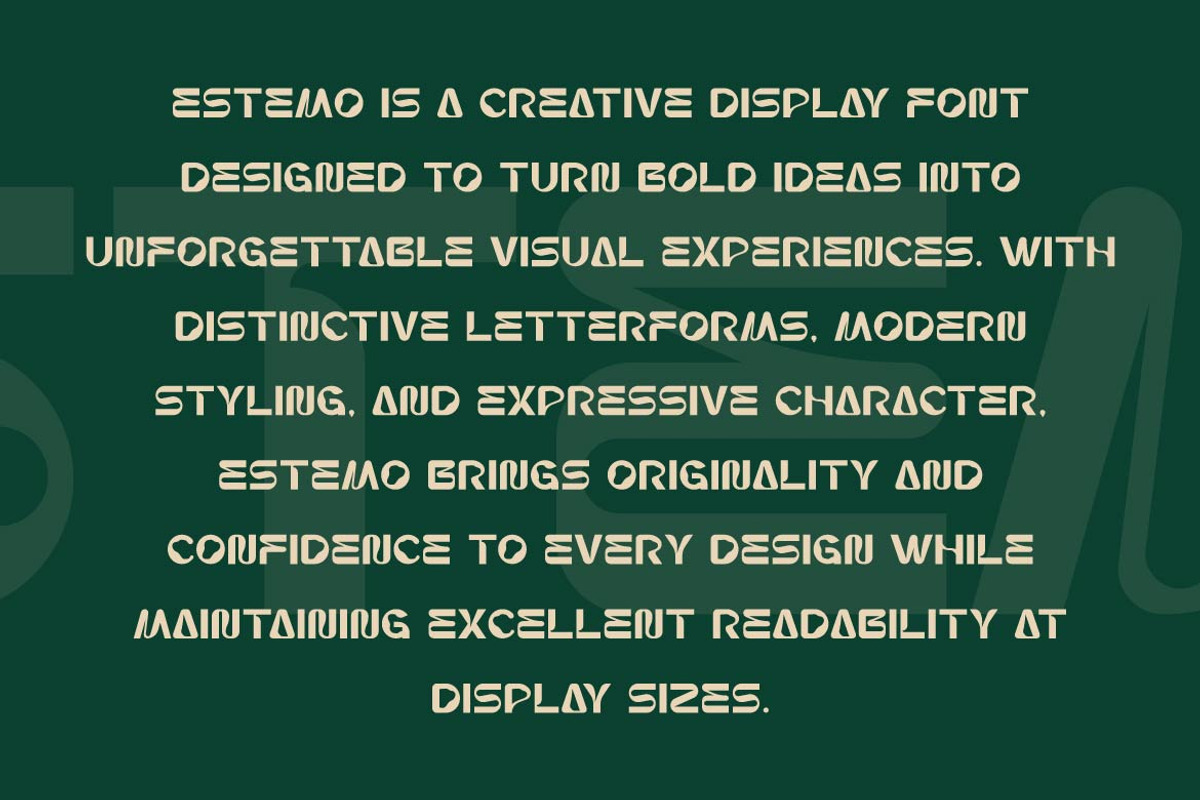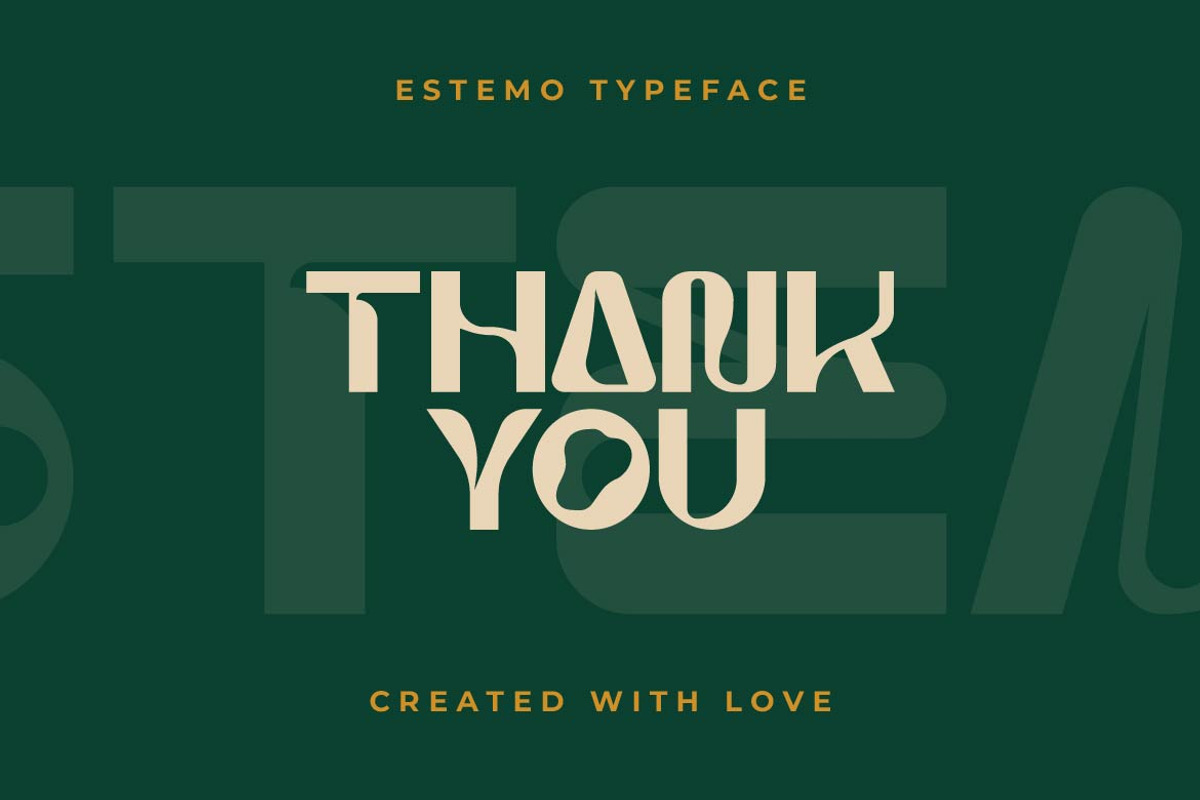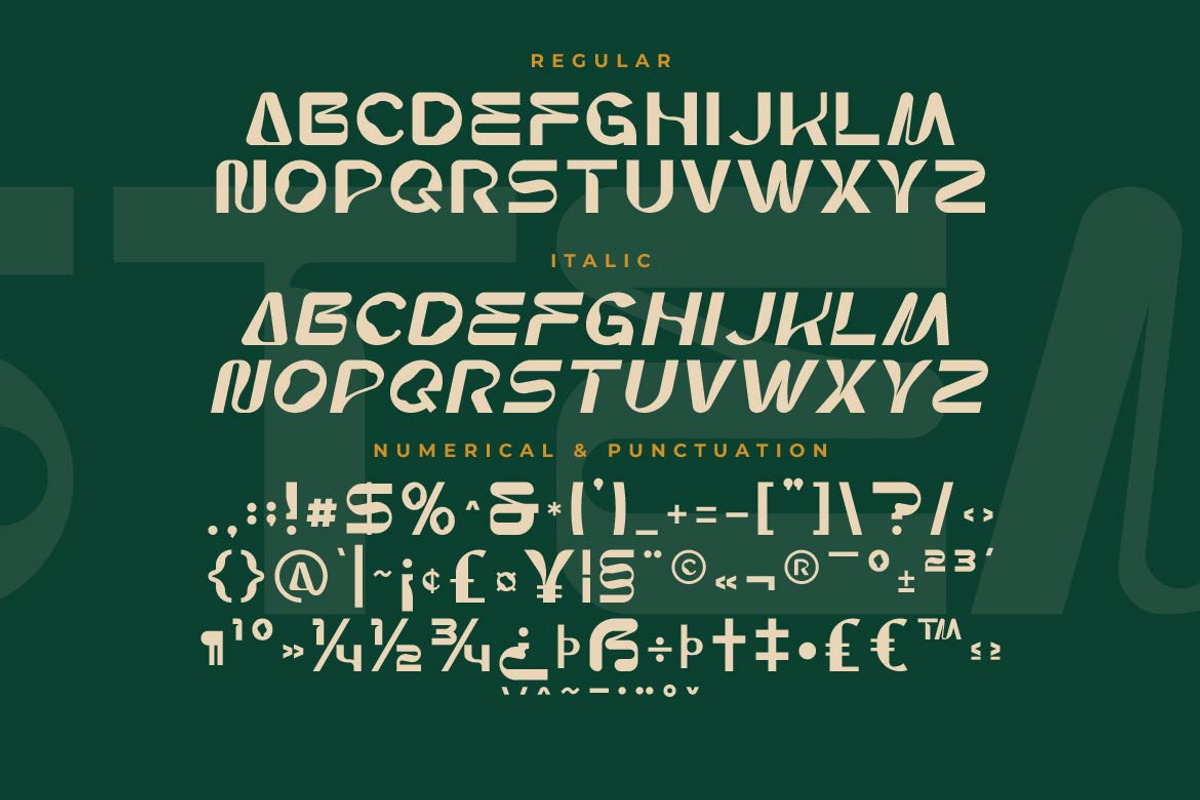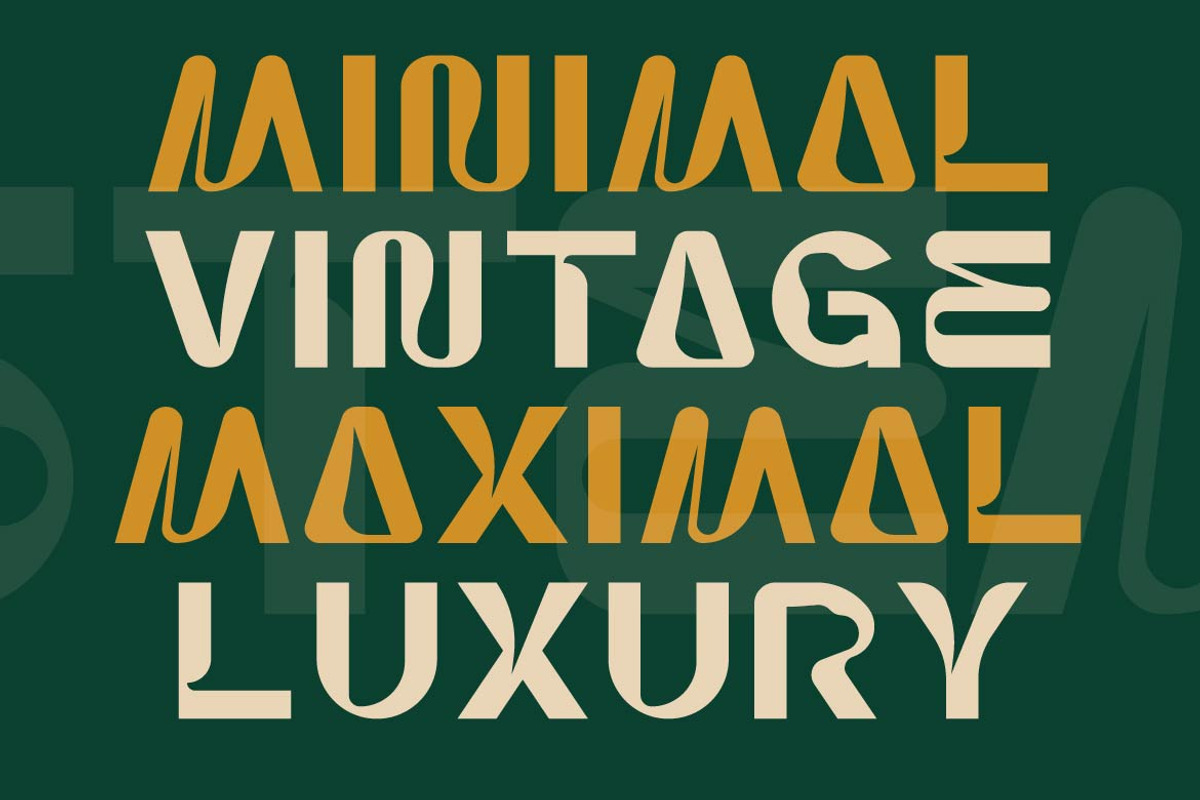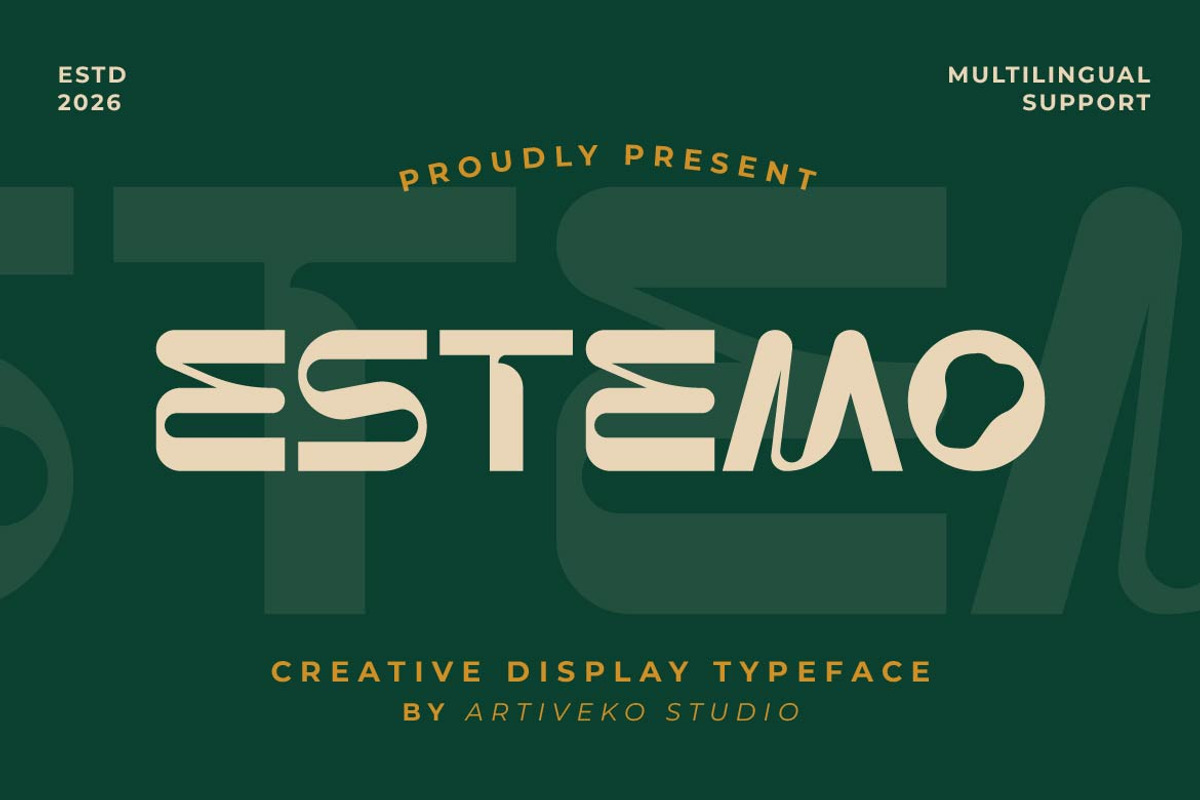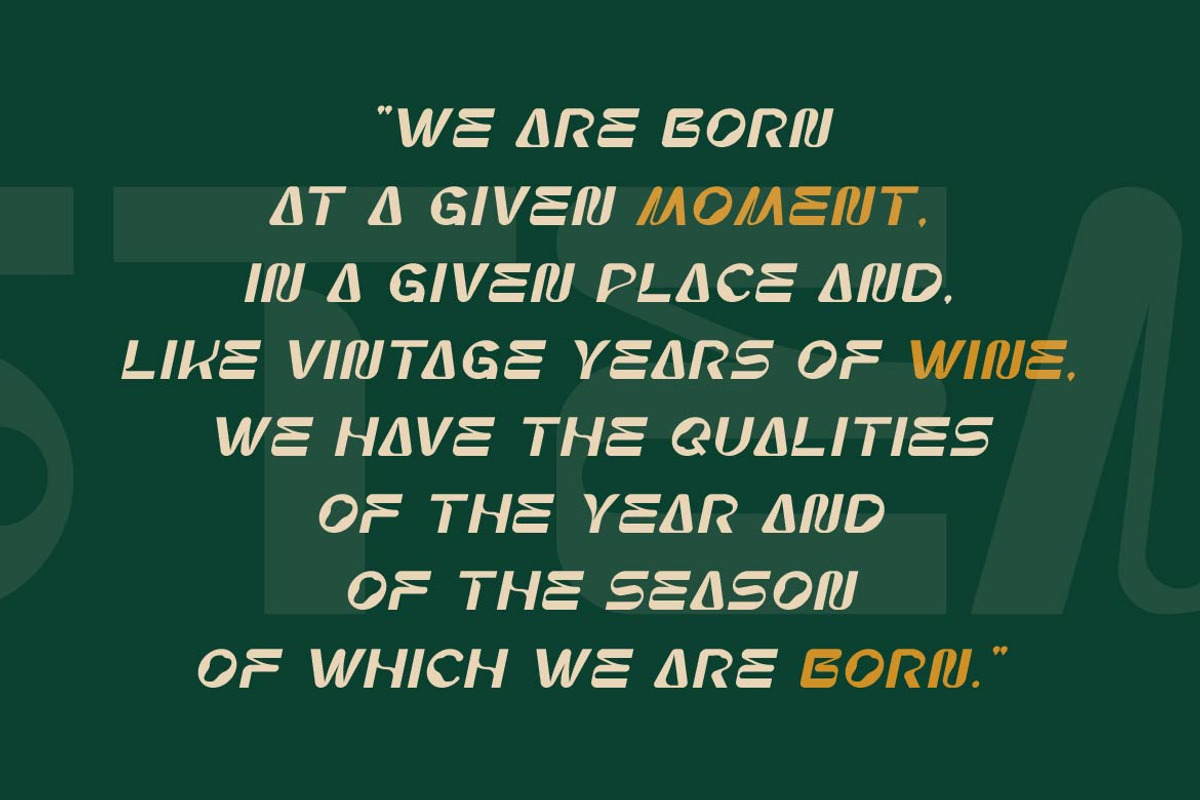
Estemo – Creative Display Font
Estemo is a creative display font designed to turn bold ideas into unforgettable visual experiences. With distinctive letterforms, modern styling, and expressive character, Estemo brings originality and confidence to every design while maintaining excellent readability at display sizes.
Ton of glyphs